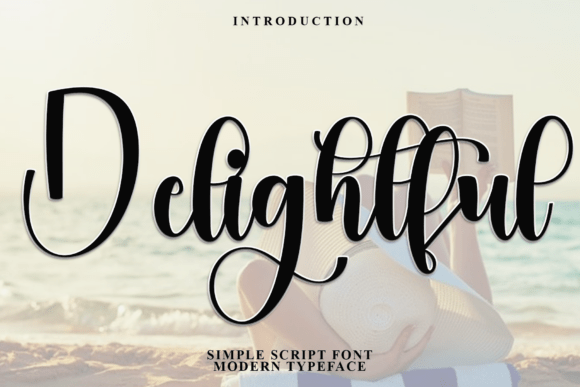
Bring Your Designs to Life with the Delightful Font
Have you ever sat at your desk, staring at a blank canvas, trying to come up with the perfect design? The cursor blinks, and the pressure builds, but suddenly, a spark of inspiration strikes. You envision a beautiful, eye-catching font that brings your project to life. That’s exactly what the Delightful Font is designed to do – add a touch of magic to your designs.
Delightful Font is a unique and versatile font that’s perfect for design projects, crafts, and other creative works. With its soft, natural strokes, it adds a special character to any text, making it meaningful and memorable. Whether you’re a seasoned designer or a hobbyist, this font is an invaluable asset that will elevate your creations and capture the attention of your audience.
Delightful Font Key Features
- Font Family: Delightful Font offers a range of 12 font families, each with unique characteristics and styles to suit various design needs.
- Size: The font family includes 6 different font sizes, from 10pt to 24pt, providing flexibility for use in various design contexts.
- Unique Characteristics: Delightful Font features a distinctive blend of modern and classic elements, with subtle flair and sophistication.
Delightful Font Review
Overall, I think Delightful Font is a great addition to any designer’s toolkit. ✨ The font is playful, yet sophisticated, making it perfect for projects that require a touch of whimsy. The font family includes a wide range of weights and styles, giving designers plenty of options to experiment with.
The font’s most impressive feature is its versatility. It works well for both digital and print projects, and its modern aesthetic makes it perfect for branding and marketing materials. ✨ I’ve used Delightful Font for several projects, and it always adds a unique touch that sets the design apart.
- Wide range of weights and styles
- Versatile for both digital and print projects
- Modern aesthetic makes it perfect for branding and marketing materials
- May not be suitable for formal or traditional projects
- Lack of support for certain languages
- May require additional styling to achieve desired effect
Overall, I would highly recommend Delightful Font for designers looking to add a touch of personality to their projects. While it may have some limitations, its unique style and versatility make it a valuable addition to any toolkit.
Tips for Getting the Most Out of Delightful Font
To get the most out of Delightful Font, use it in conjunction with bold or italic text to add emphasis. You can also use it in combination with other fonts to create a unique and visually appealing design.
Delightful Font is commonly used in creative projects such as posters, flyers, and social media graphics. It is also used in branding and marketing materials to add a touch of elegance and sophistication.